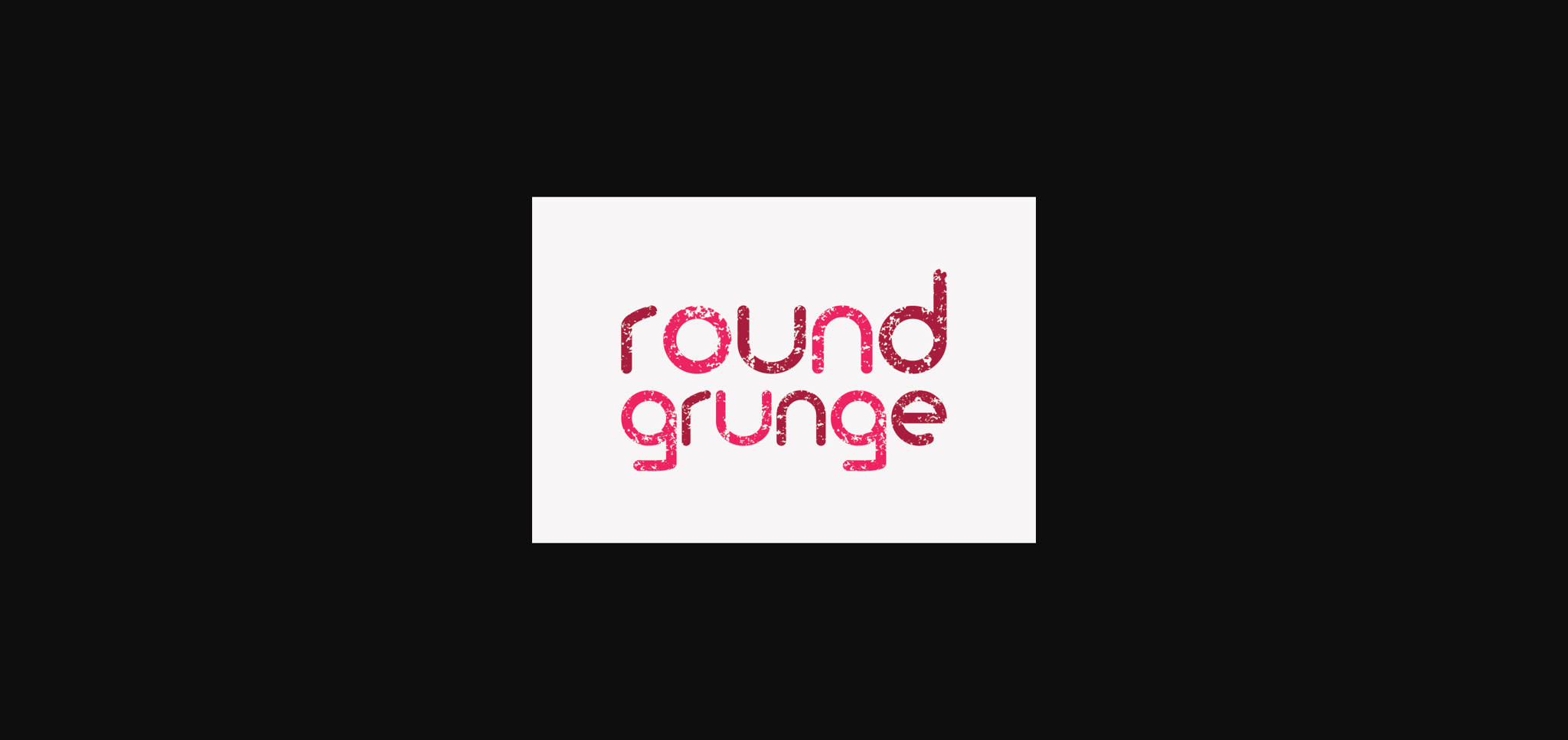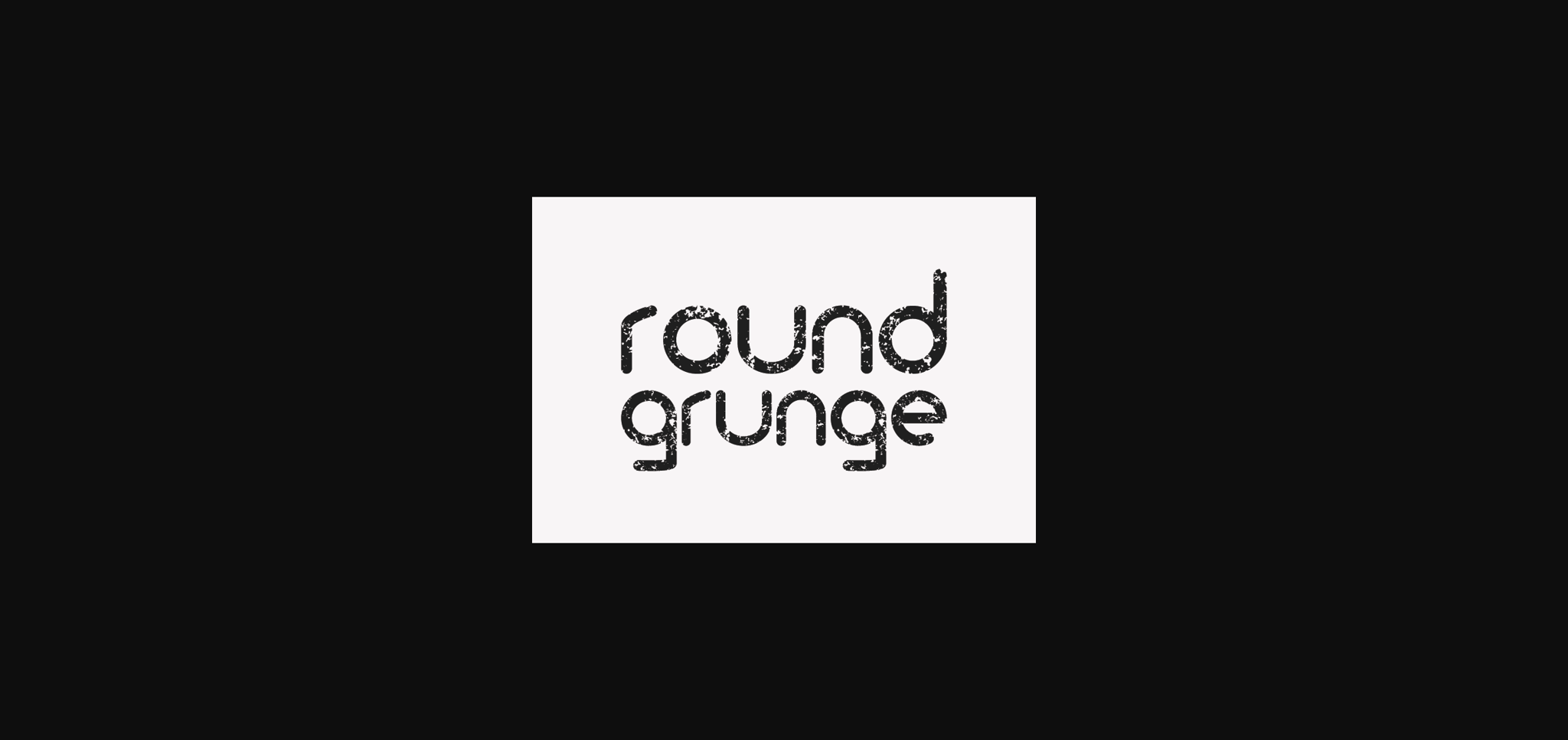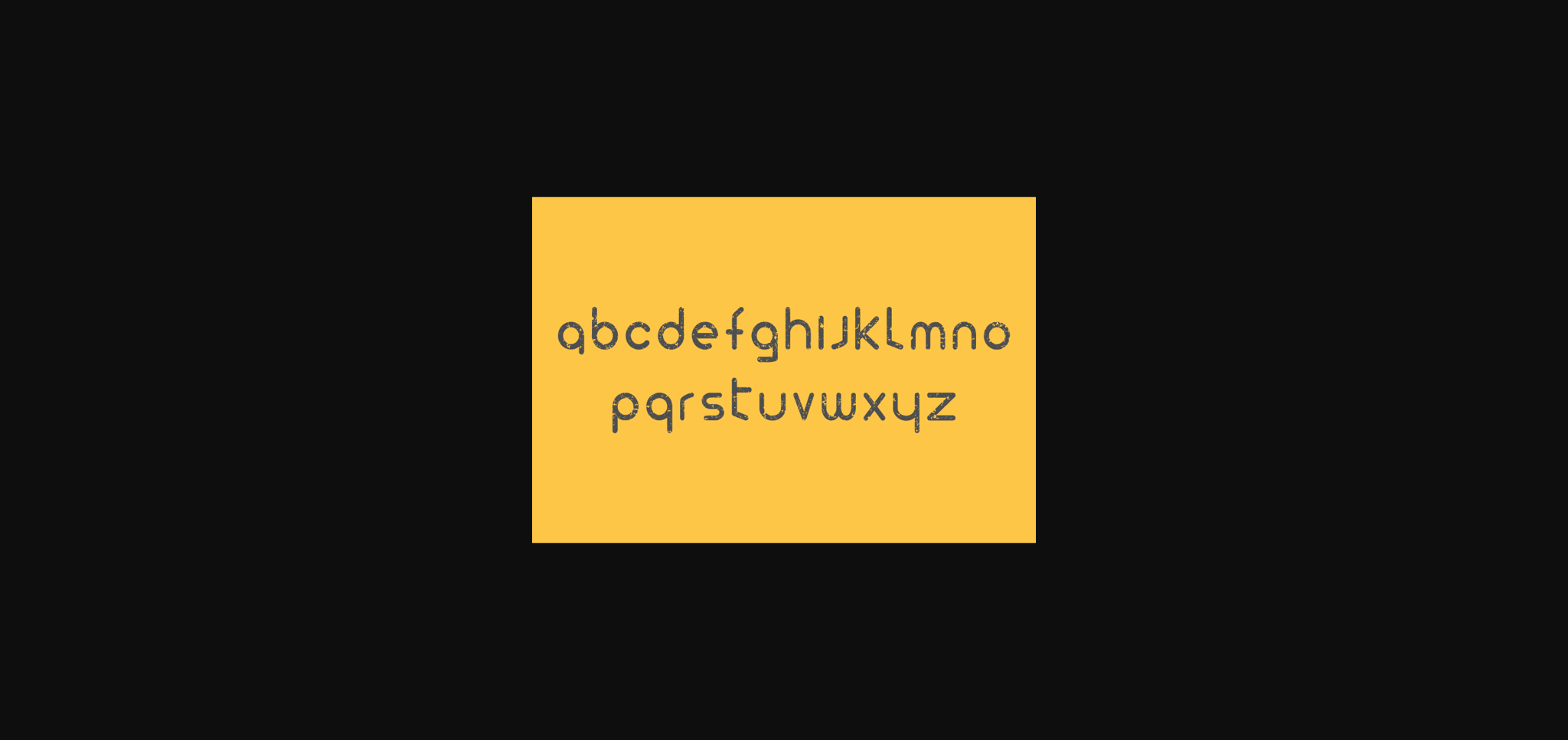
Round Grunge Font
About Round Grunge Font
Round Grunge font is a typographic masterpiece that seamlessly marries rugged, organic elements with a touch of contemporary flair. Its characters exude a sense of weathered authenticity as if each letter has been forged by time and the elements. The rounded edges evoke a comforting sense of approachability, inviting the reader to explore its gritty intricacies.